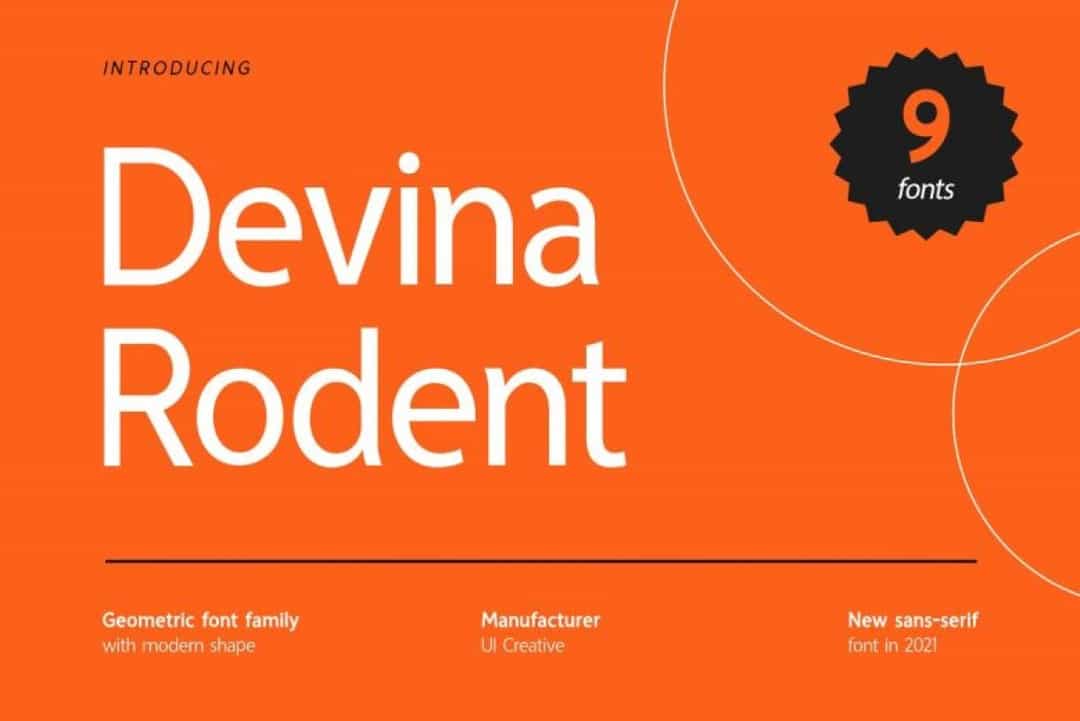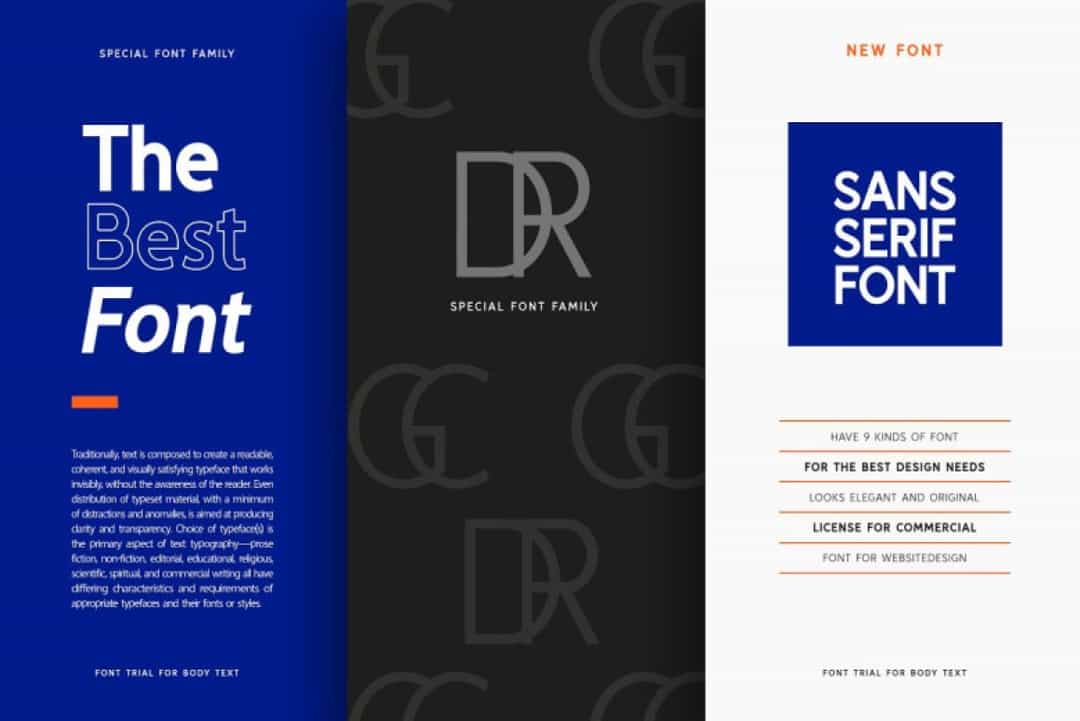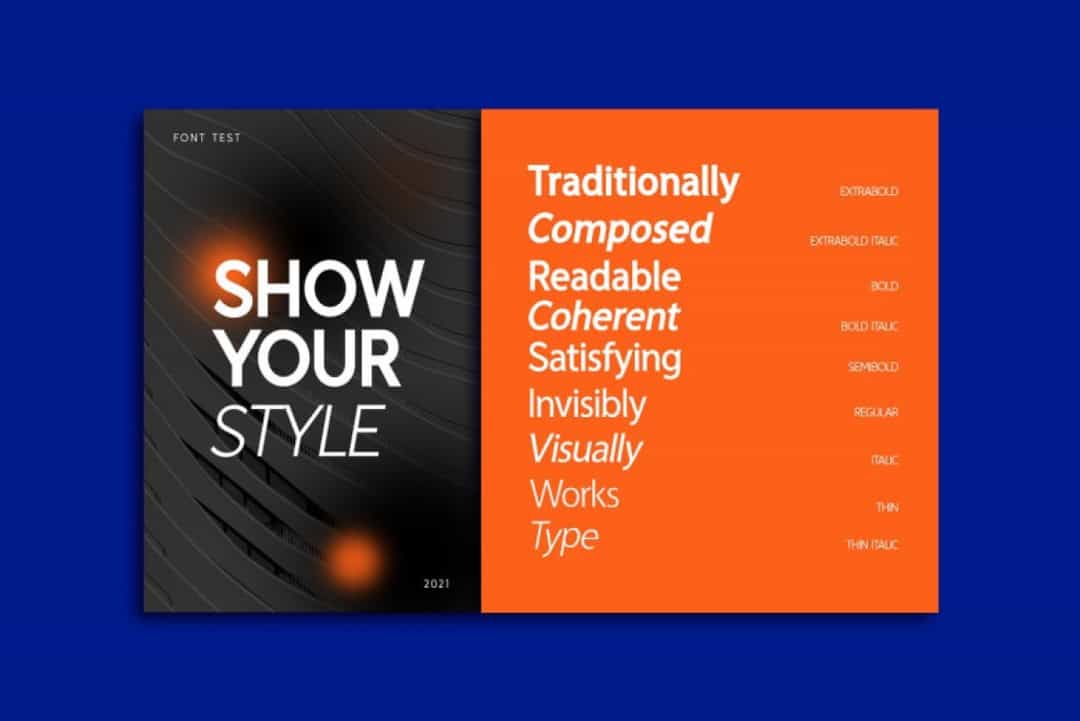
Discover Devina Rodent Font, part of the Sans Serif Basic collection—a versatile and unique font perfect for adding a personal touch to your projects. Download it for free and enjoy crafting designs with style, from invitations to social media posts. This font is available exclusively for personal use, giving you the freedom to create without limits. Unlock your creativity with Devina Rodent Font today!
Devina Rodentis font is a serif-free family of fonts with clean, geometric lines. Perfect for many projects including logo design, stationery design, signature wedding invitations, magazine or book covers typography quotes or book covers typography quote magazine covers headers on websites packaging clothing branding designs etc.